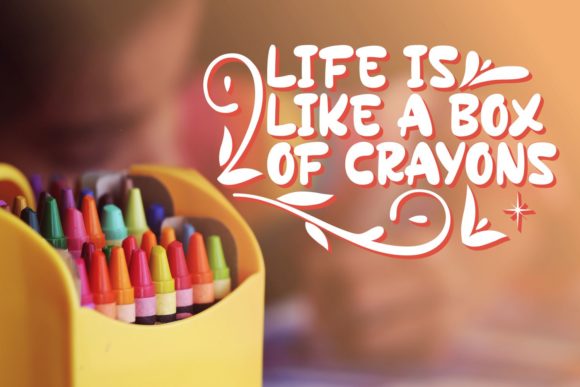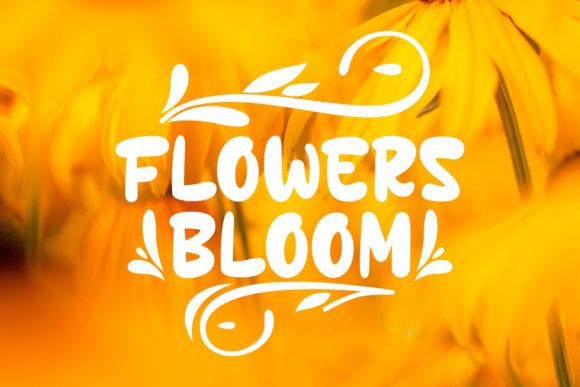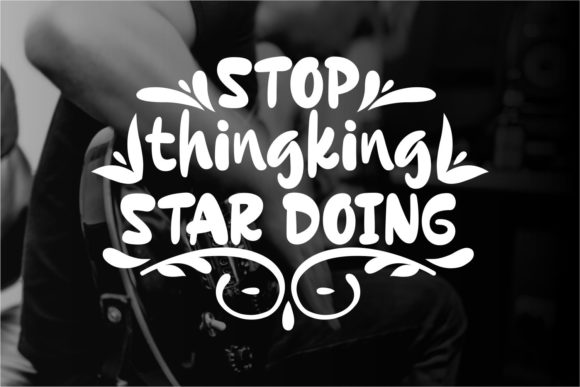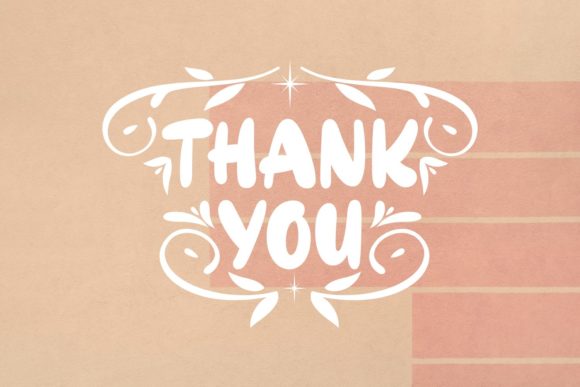
Discover the Delightful Don’t You Worry Font: Elevate Your Designs with Joy
Are you tired of using the same old fonts in your designs? Look no further! Introducing the Don’t You Worry font, a cute and quirky display font that is sure to add an incredibly joyful touch to your creations. This beautiful font is perfect for designers and crafters who want to make their projects stand out from the crowd.
What Makes Don’t You Worry Font So Special?
Don’t You Worry font is a unique and playful display font that is designed to bring a smile to your face. Its quirky and charming style makes it perfect for a variety of design projects, from party invitations and social media graphics to branding and advertising materials. With its bold and eye-catching letters, this font is sure to grab attention and leave a lasting impression.
- Party invitations and event flyers
- Branding and advertising materials
- Blog posts and website headers
Benefits of Using Don’t You Worry Font
There are many benefits to using the Don’t You Worry font in your designs. Here are just a few:
- Adds a playful touch: This font adds a fun and playful touch to your designs, making them more engaging and attention-grabbing.
- Unique and quirky style: The Don’t You Worry font has a unique and quirky style that sets it apart from other fonts.
- Easy to read: Despite its playful style, this font is easy to read, making it perfect for use in a variety of design projects.
- Versatile: This font can be used in a variety of design projects, from party invitations to branding materials.
Tips for Getting the Most Out of Don’t You Worry Font
Here are a few tips for getting the most out of the Don’t You Worry font:
- Use it sparingly: While this font is fun and playful, it can be overwhelming if used too much. Use it sparingly to add a touch of whimsy to your designs.
- Pair it with other fonts: Pair the Don’t You Worry font with other fonts to create a unique and interesting contrast.
- Experiment with colors and textures: Experiment with different colors and textures to add depth and interest to your designs.
| Font Name | Don’t You Worry Font |
| Author | Rifki (7ntypes) |
In conclusion, the Don’t You Worry font is a cute and quirky display font that is sure to add a joyful touch to your designs. With its unique and playful style, this font is perfect for designers and crafters who want to make their projects stand out. Whether you’re creating party invitations, social media graphics, or branding materials, this font is sure to bring a smile to your face and engage your audience.